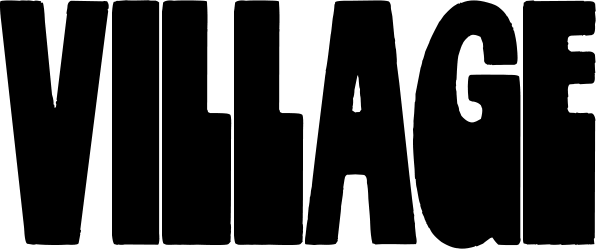
Village Font
If like the brilliant designer of this cartoon font, your idea of flawless lettering is both fun and expressive, you’re going to be pleased with Village. This 80s sans serif font contains condensed but smooth elements, which do not include any lowercase, and turns your website graphics, digital banners, book titles, or anything else into one-of-a-kind artwork, strong, but playful.
For the first time, here it is the restoration of the original “R” and “T” characters of this font, but i also have leaved the “Orbit” versions as the minus characters.